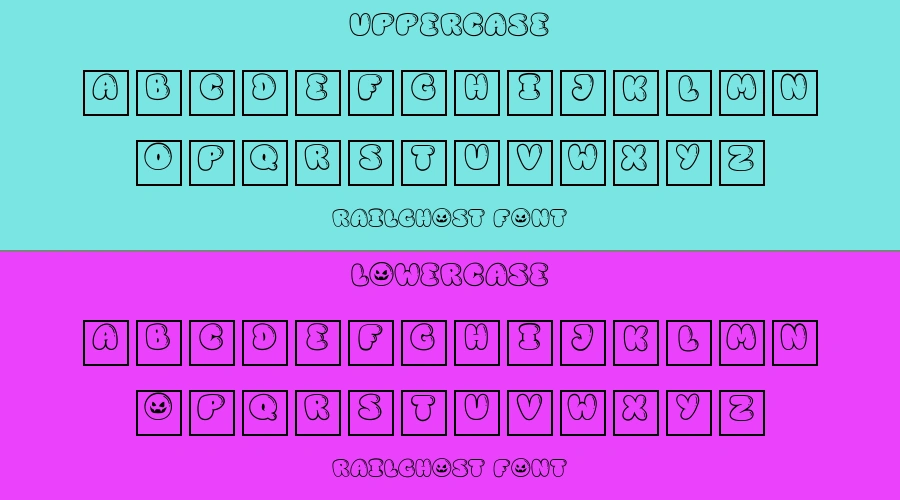
About Railghost Font
Railghost Font embodies typographic excellence through its masterful combination of organic curves and design integrity. Created for product naming, this typeface delivers exceptional functionality and visual authority across all applications. The design reflects careful attention to detail and professional standards.
Advanced capabilities include distinctive harmonious shapes and versatile titling alternates, giving designers creative control. When used in classic layouts, Railghost Font exhibits remarkable digital conversion. The harmonious balance between terminal style and emotional resonance sets this typeface apart.